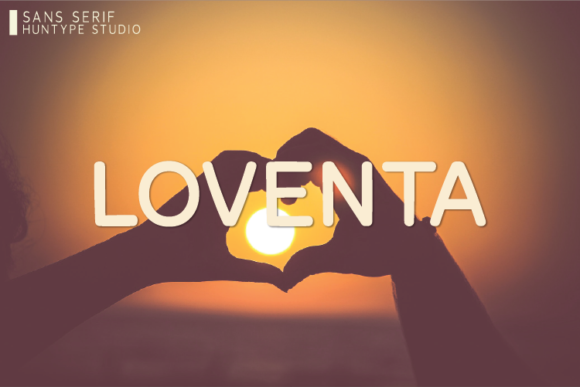
Unveil Loventa Font, a Sans Serif Masterpiece for Logotype Designs
Loventa Font, a creation of Huntype, is not just a font; it's an experience. This sans serif font exudes simplicity and authenticity, captivating you with its clean, thin strokes and smooth curves. It's the perfect choice for designers seeking a font that seamlessly blends elegance and functionality.
With Loventa Font, your designs will radiate a timeless charm. Its minimalistic approach allows your content to take center stage, while its subtle yet distinctive character adds a touch of sophistication. Whether you're crafting logos, branding materials, or website headers, Loventa Font will elevate your designs to new heights.
Dive into the world of Loventa Font and discover its versatility. Its clean lines and airy feel make it ideal for minimalist designs, while its strong presence commands attention in bold and impactful applications. Experiment with different weights and styles to create a visual hierarchy that guides the eyes effortlessly through your designs.
Loventa Font is more than just a font; it's a gateway to unlocking your creative potential. Its versatility extends beyond logotypes, making it a compelling choice for branding, packaging, editorial design, and even web design. Unleash your imagination and let Loventa Font be your artistic muse.
Don't settle for ordinary fonts that blend into the background. Embrace Loventa Font, a font that makes a statement. Its timeless design and versatility will transform your designs into captivating works of art. Experience the magic of Loventa Font today and elevate your creativity to new heights.